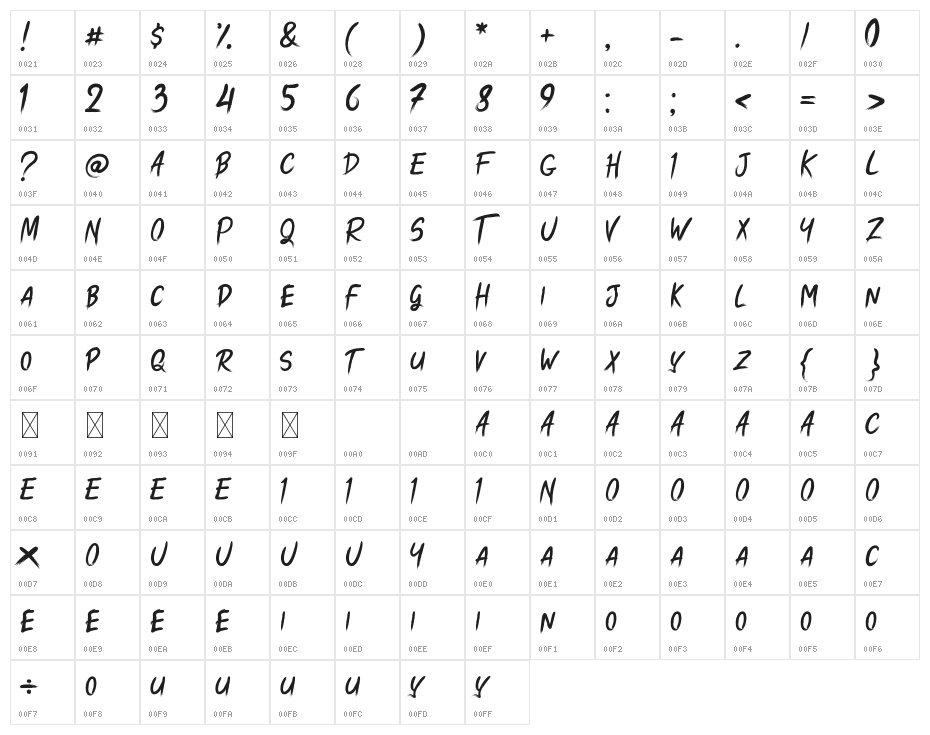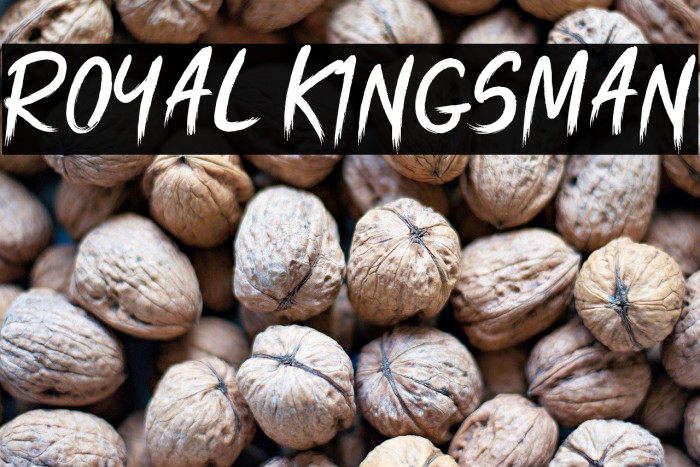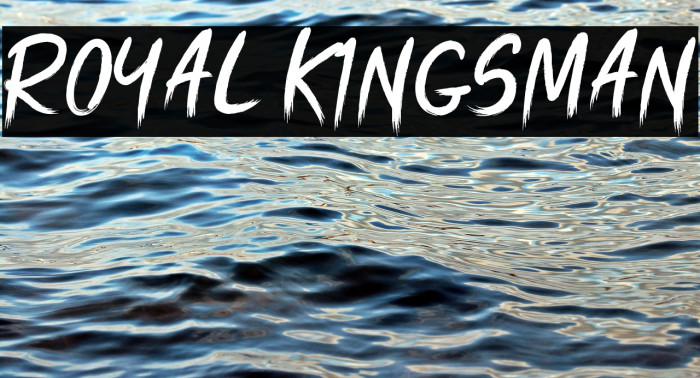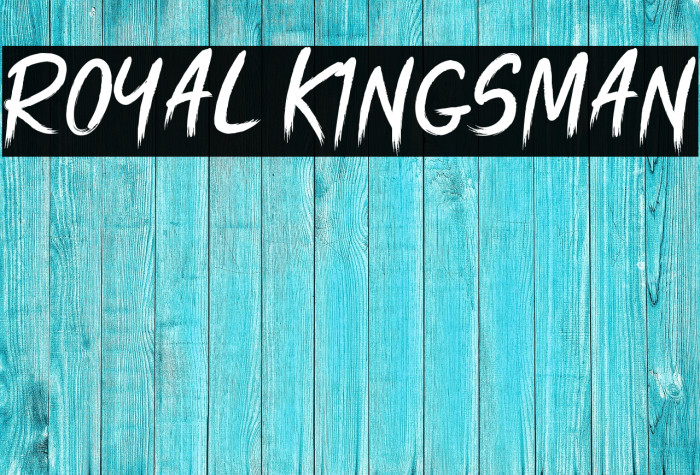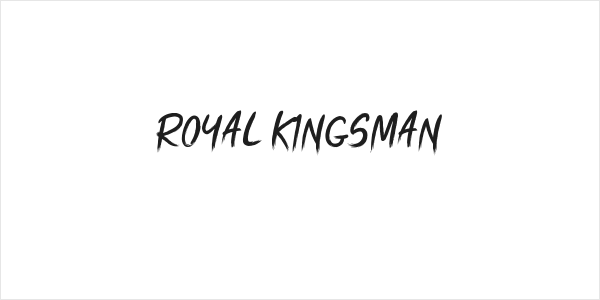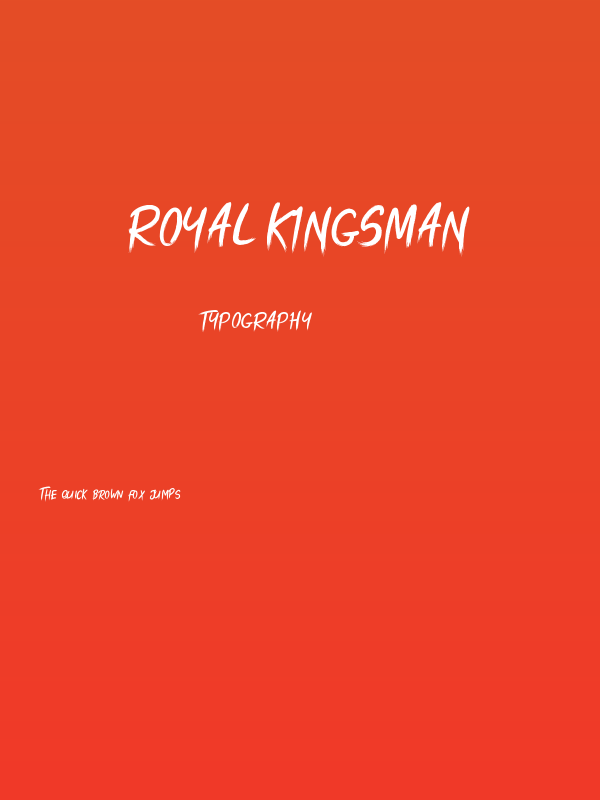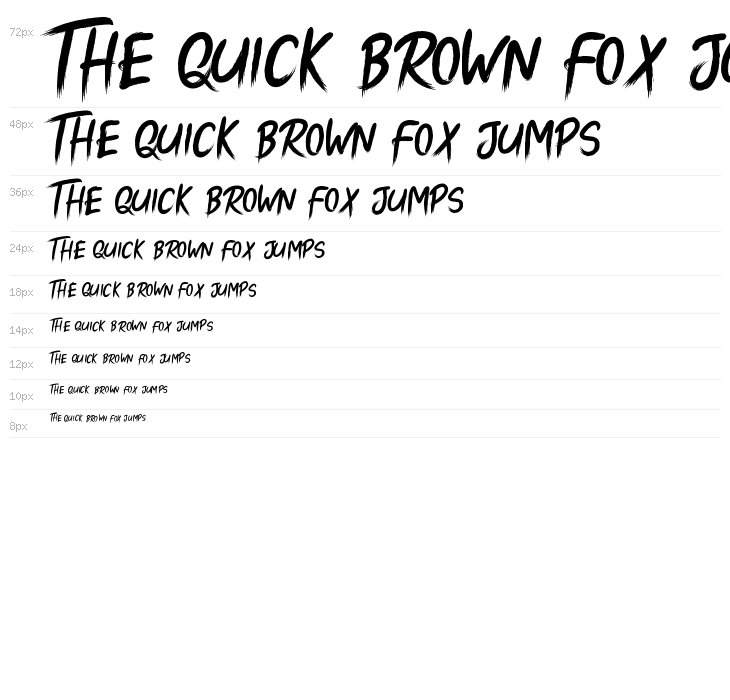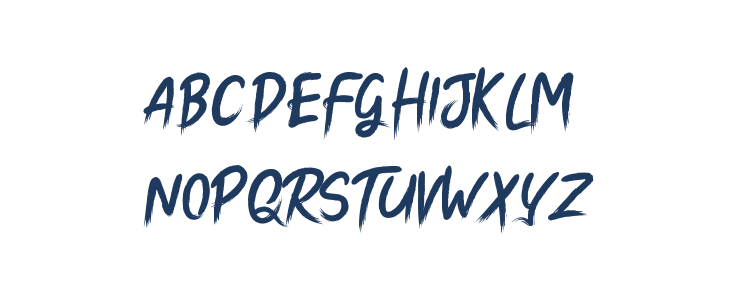
ROYAL KINGSMAN Font
ROYAL KINGSMAN Description
This font features a bold, brush-like style with dynamic strokes and a handwritten feel. The characters exhibit a sense of movement and energy, with varying stroke thickness that adds a lively and artistic touch. The uppercase and lowercase letters maintain a consistent style, while the numbers and special characters integrate seamlessly, offering a cohesive look. The overall appearance is both modern and expressive, making it suitable for creative and impactful designs.